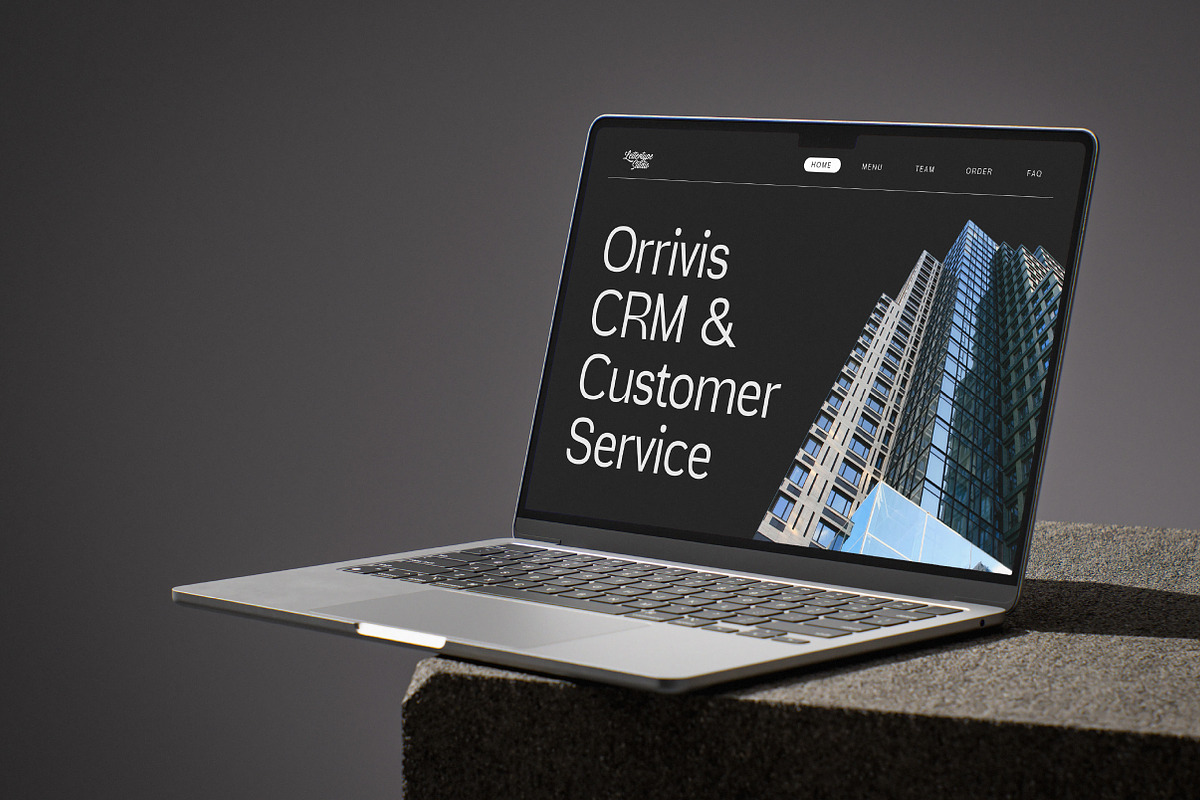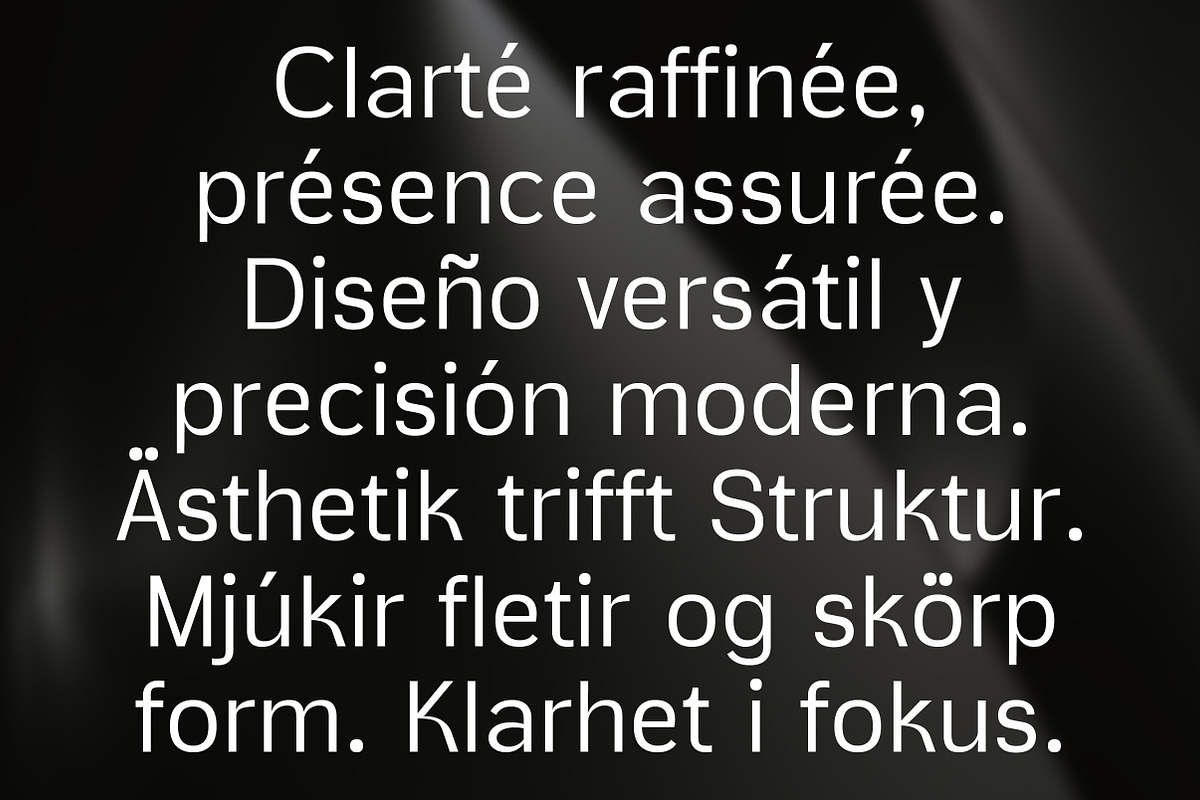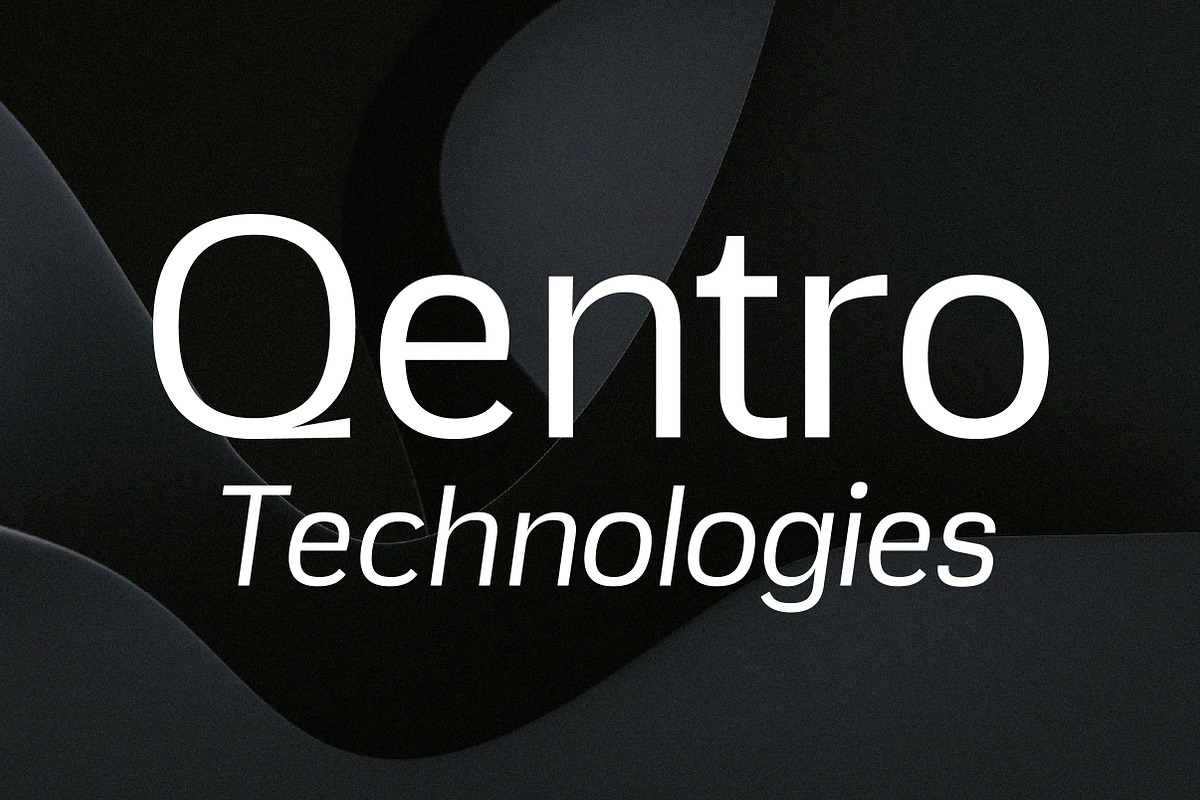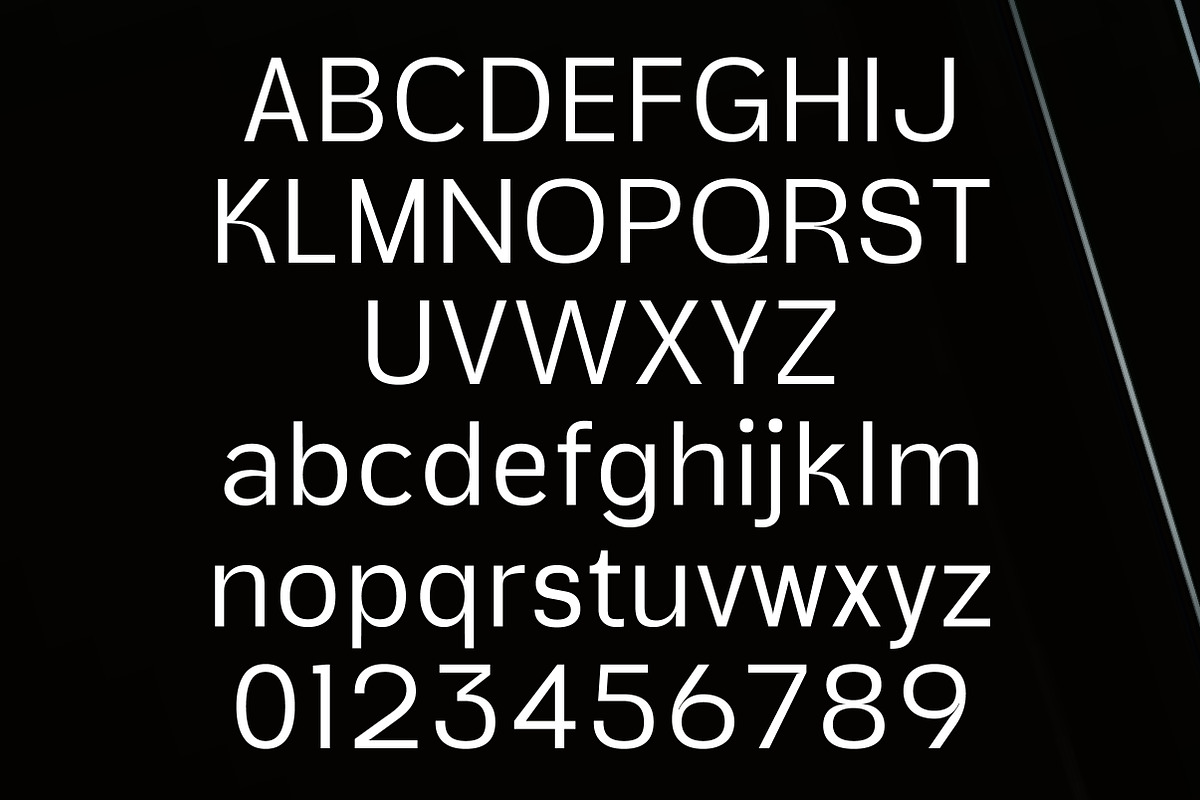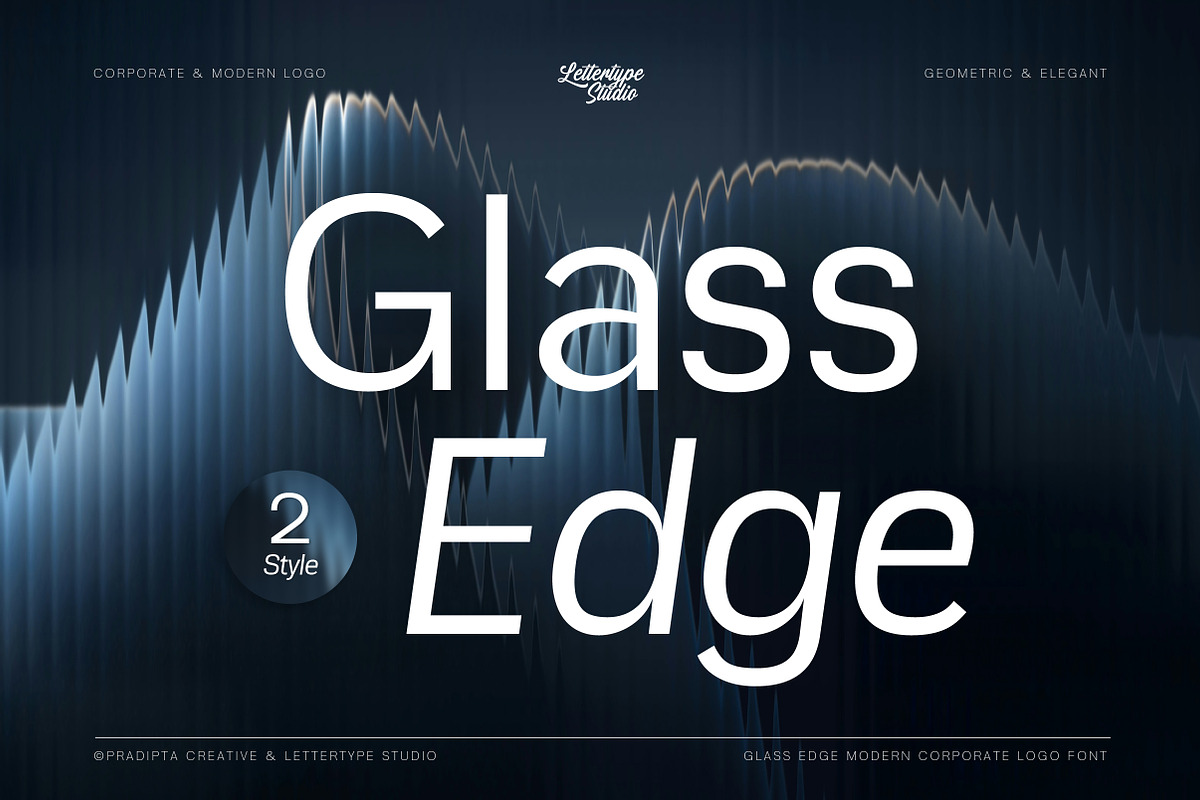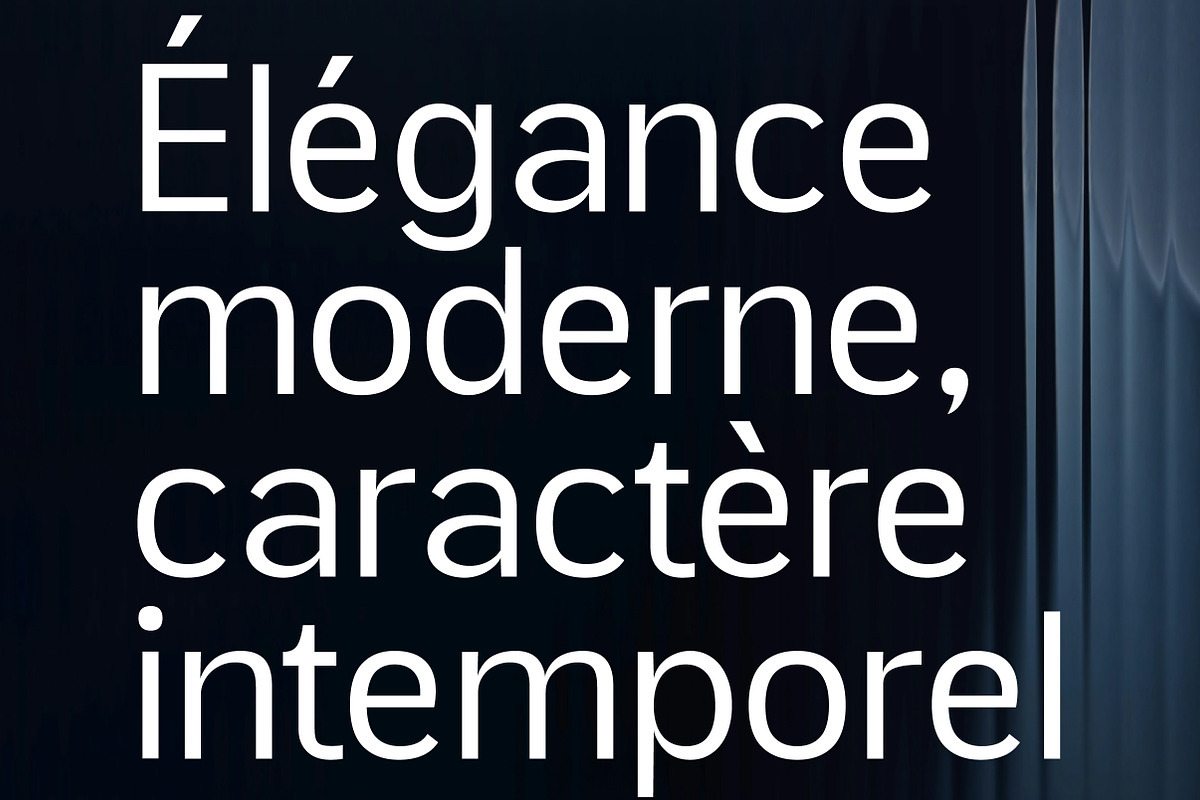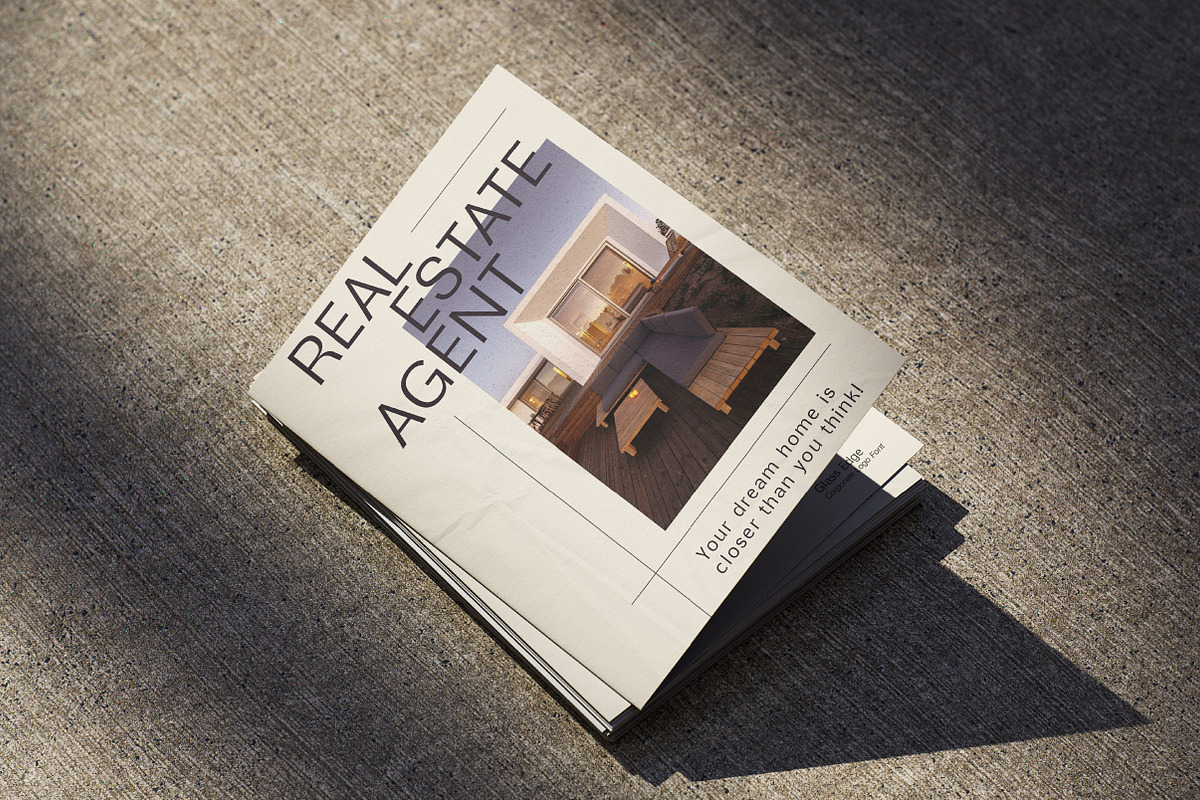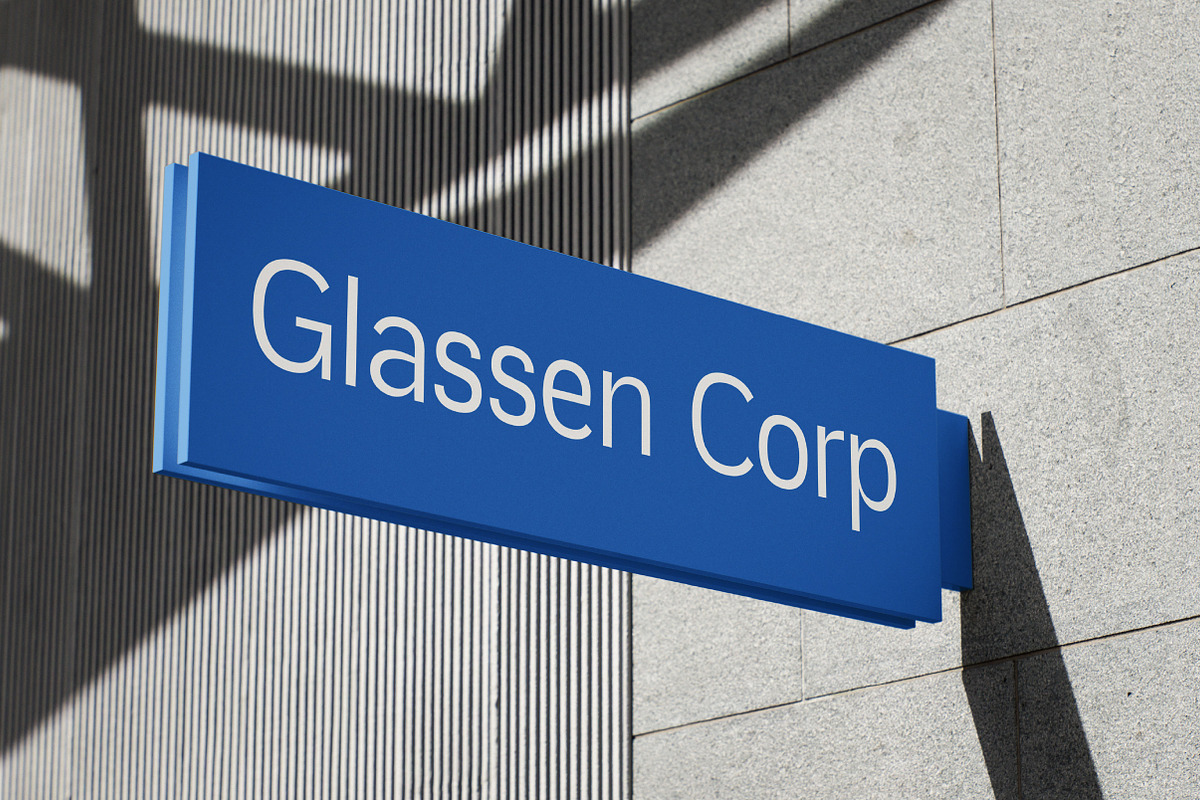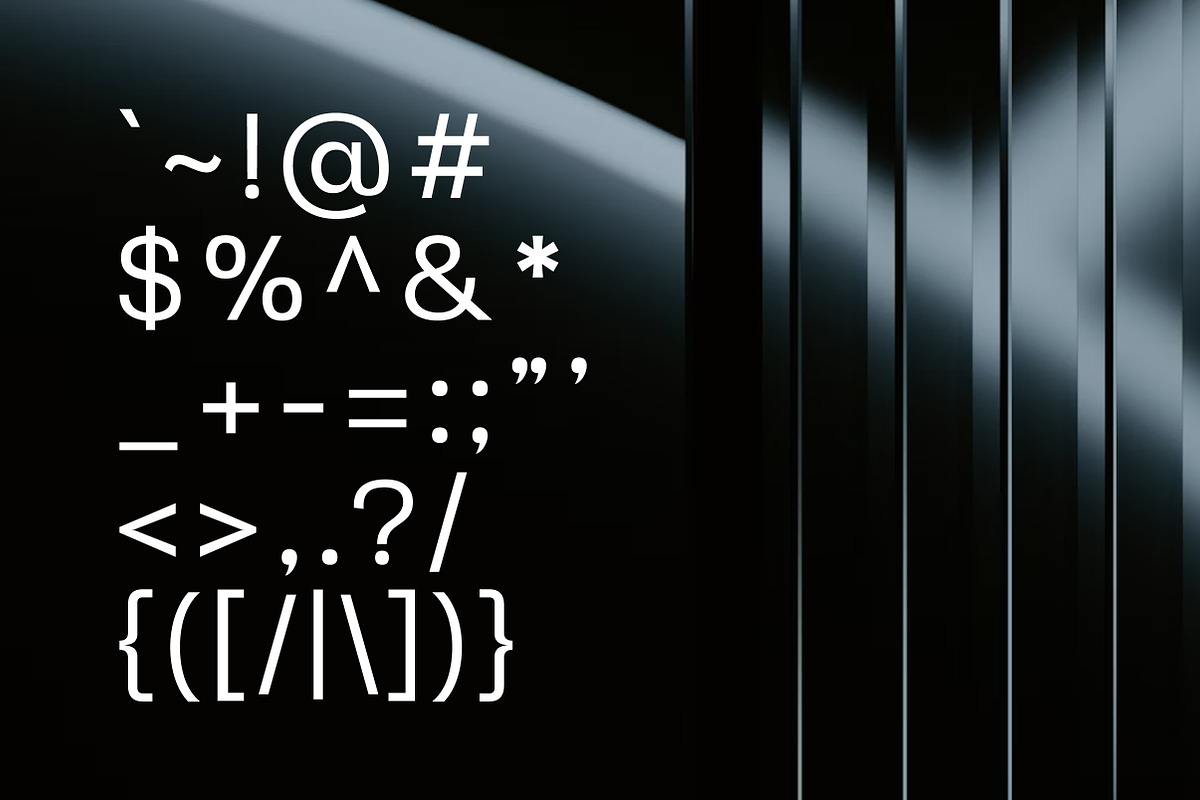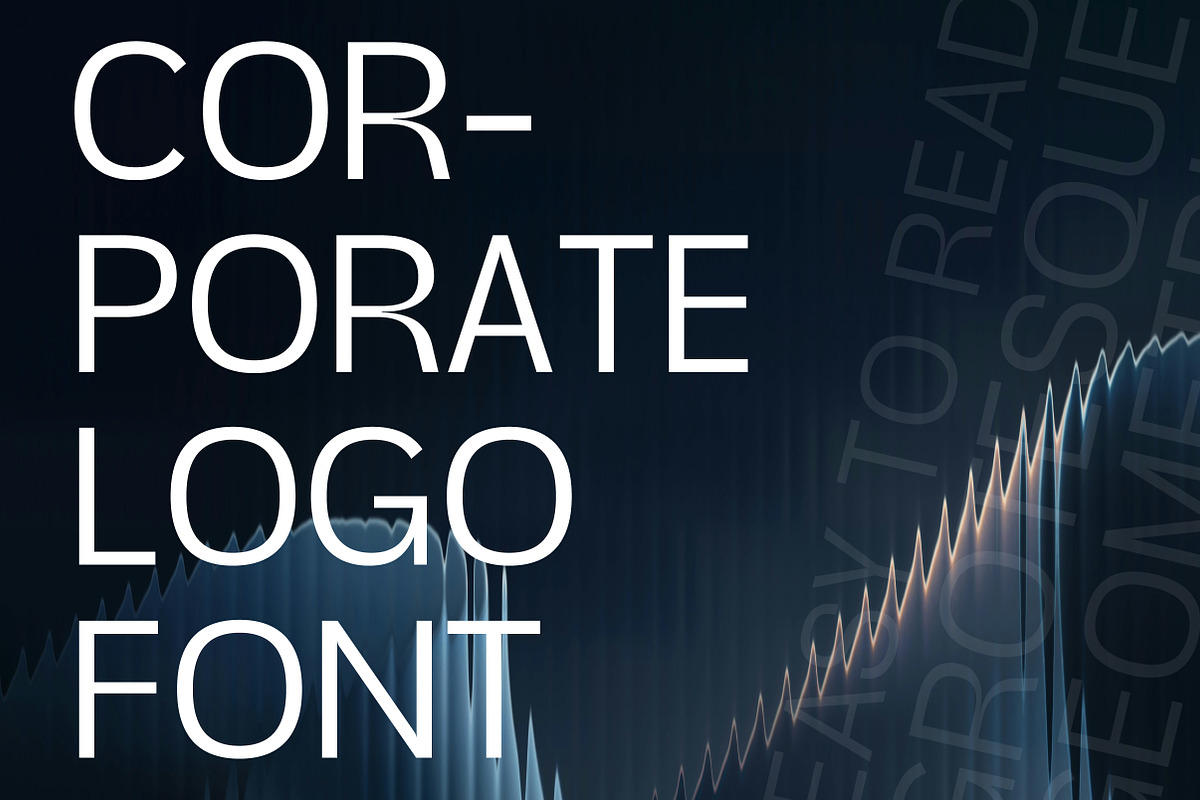
Glass Edge – Modern Corporate Logo
Glass Edge is a modern grotesque sans-serif font designed for bold, professional branding. Influenced by the fluid, glass-like aesthetics found in next-generation mobile operating systems, this typeface brings sharp clarity and futuristic precision into every design. With clean geometry and refined curves, Glass Edge is ideal for corporate logos, tech interfaces, software branding, and minimalist visual systems that demand both strength and sophistication.
This font family comprises two essential styles: Regular and Oblique, providing the perfect versatility for headlines, UI layouts, branding kits, and product packaging. Whether you're crafting a modern tech brand or a sleek digital identity, Glass Edge offers a balance of functional grotesque form and subtle elegance—making it your go-to choice for clarity-driven, forward-thinking design.
Glass Edge Features:
- 2 Styles
- Upright & Oblique
- 454 Glyphs Total
- 270+ Language Supports
- Tech startups, app interfaces & digital product branding
- Corporate identity, logo design & presentation systems
- Software, UI dashboards & web layouts
- Packaging, posters & minimalist advertising design
- Futuristic editorial & clean geometric typography projects